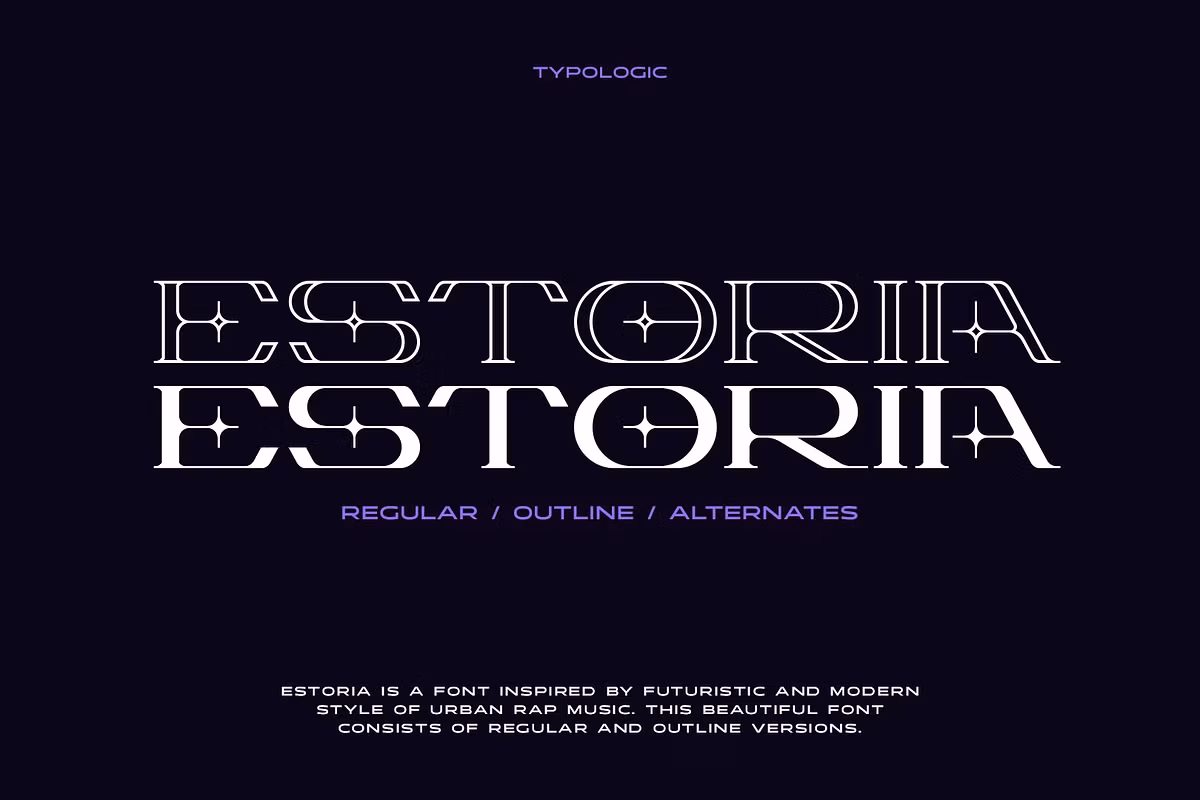
Estoria Futuristic Font Free Download is a sleek and modern typeface inspired by futuristic design trends. With sharp lines, geometric shapes, and clean, minimalistic features, this font is perfect for sci-fi projects, technology-related branding, digital media, and any design that calls for a cutting-edge, forward-thinking aesthetic.
The bold, high-tech look of Estoria Futuristic makes it ideal for creating modern logos, headlines, web design, and promotional material that needs to convey innovation and progress. Whether you're working on a tech startup, a video game, or a space-themed project, this font adds a contemporary and dynamic feel to your typography.
Bring a touch of the future to your designs with Estoria Futuristic Font Free Download, and create clean, innovative typography that stands out with modern flair. Perfect for designers seeking a high-tech, futuristic font.